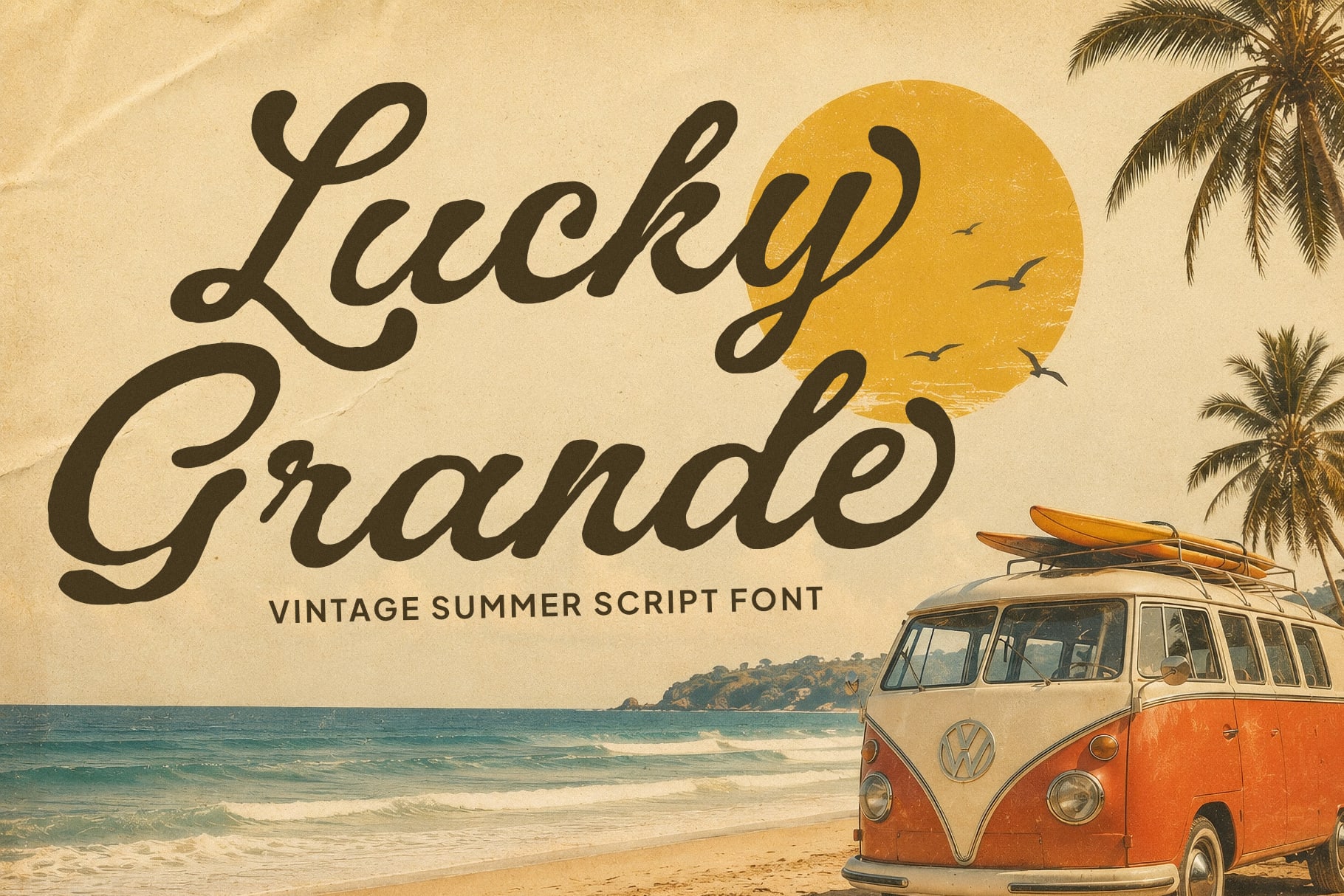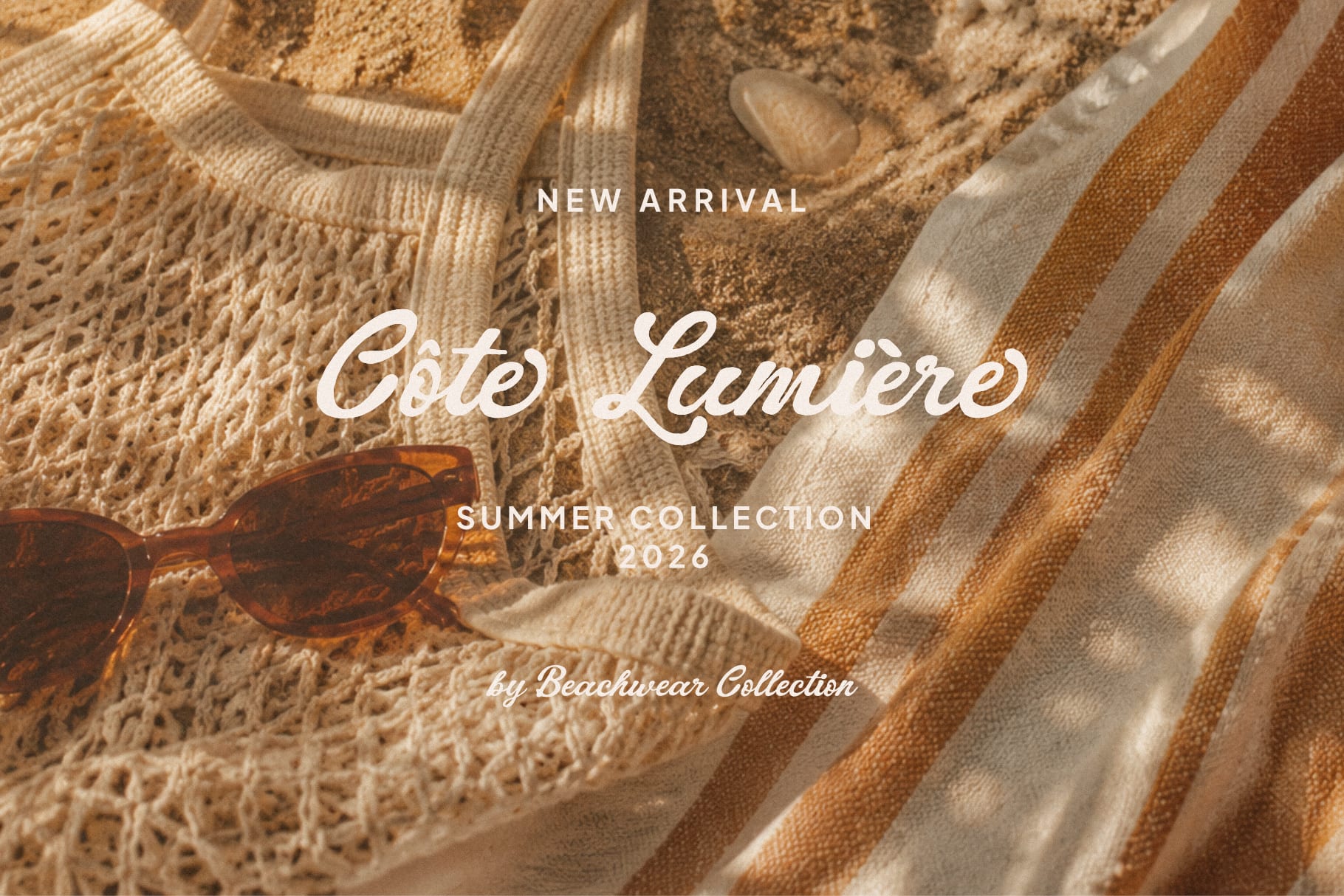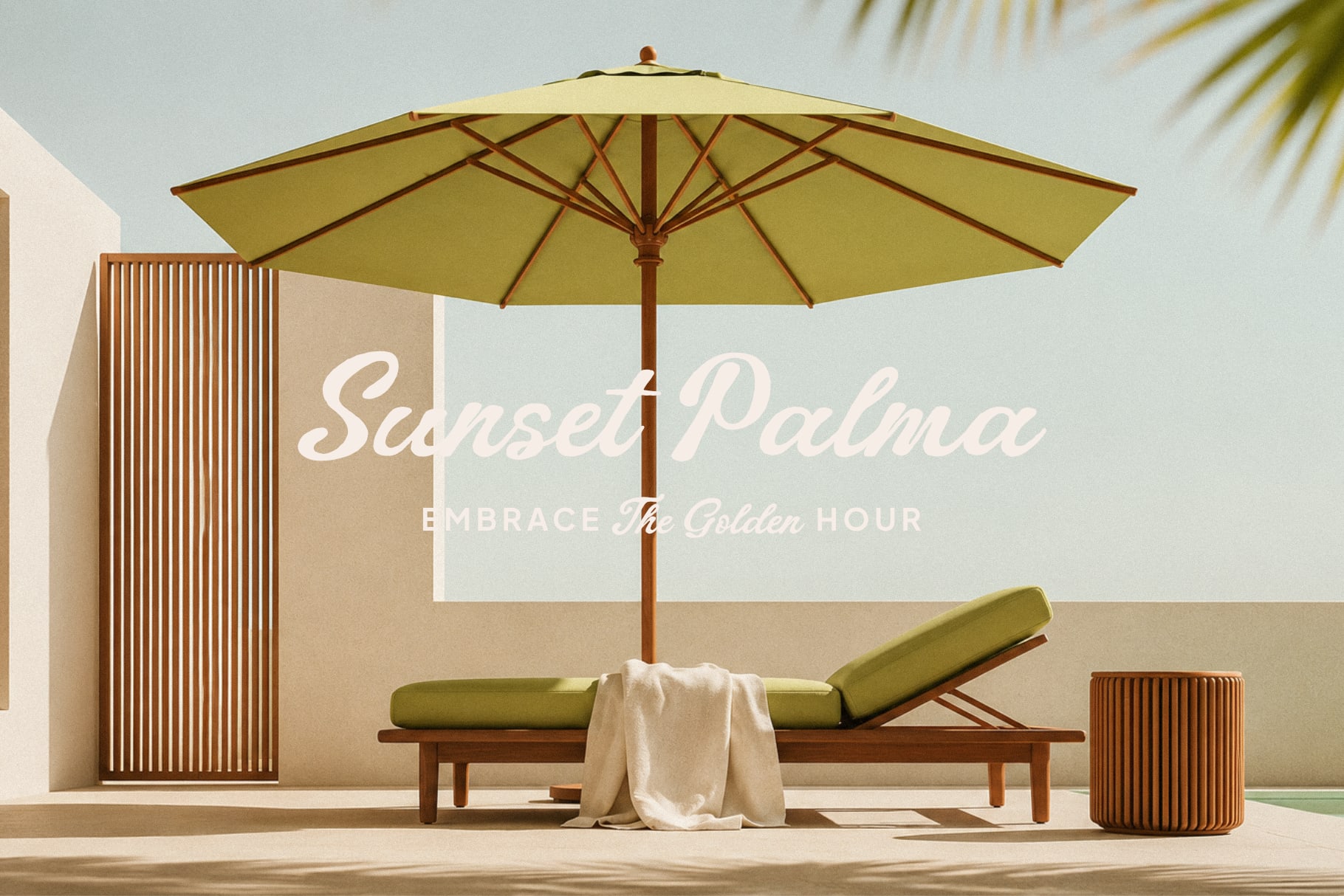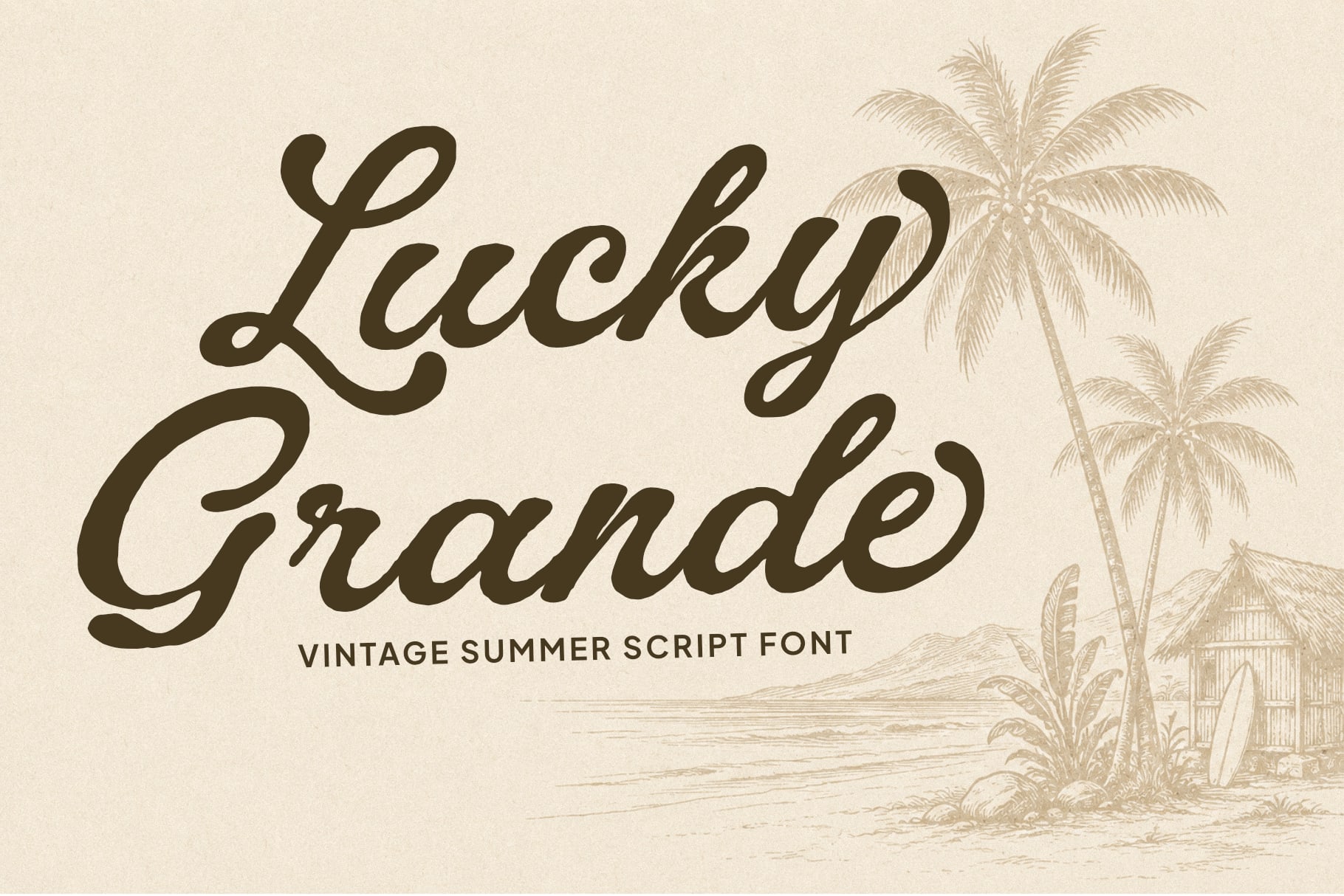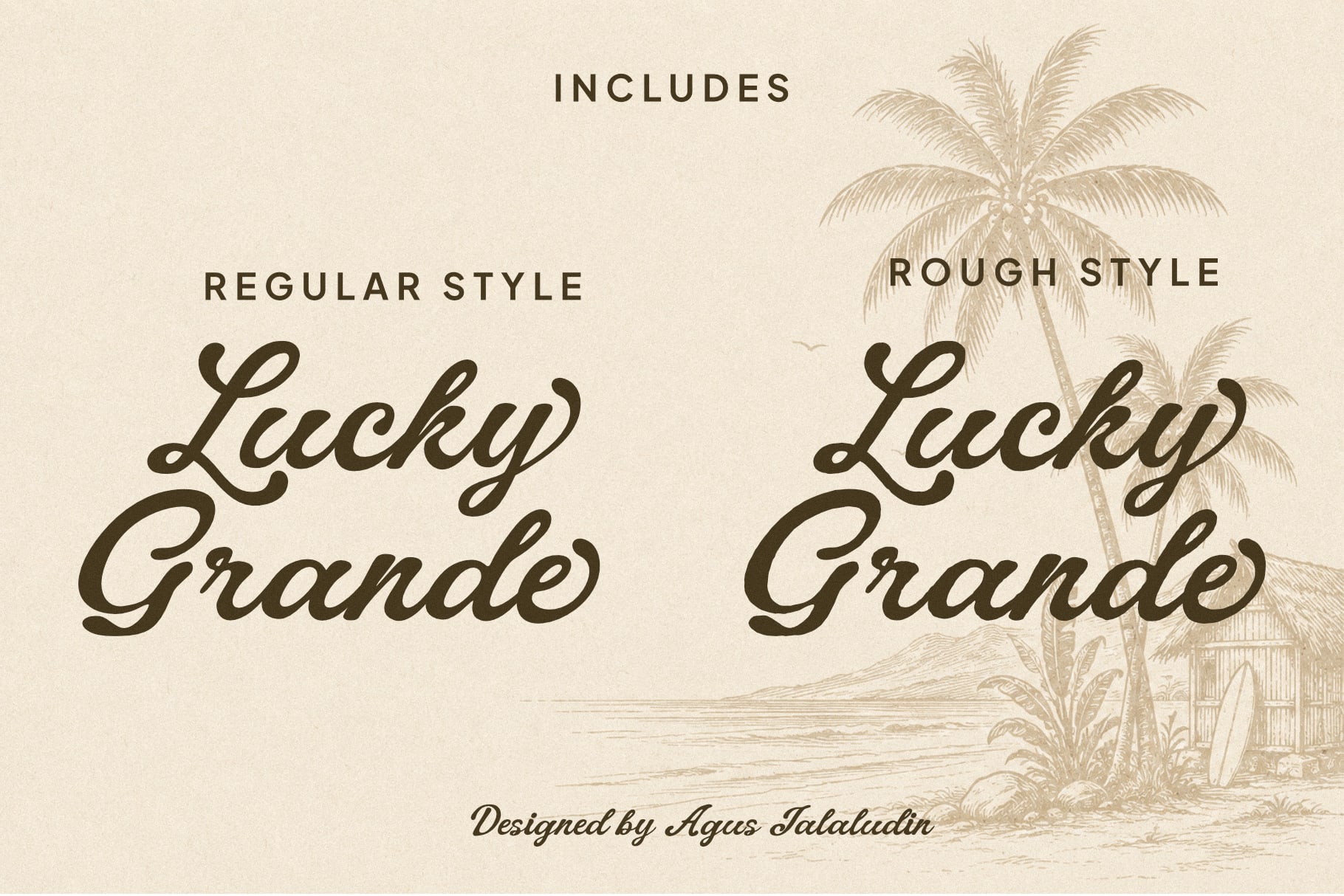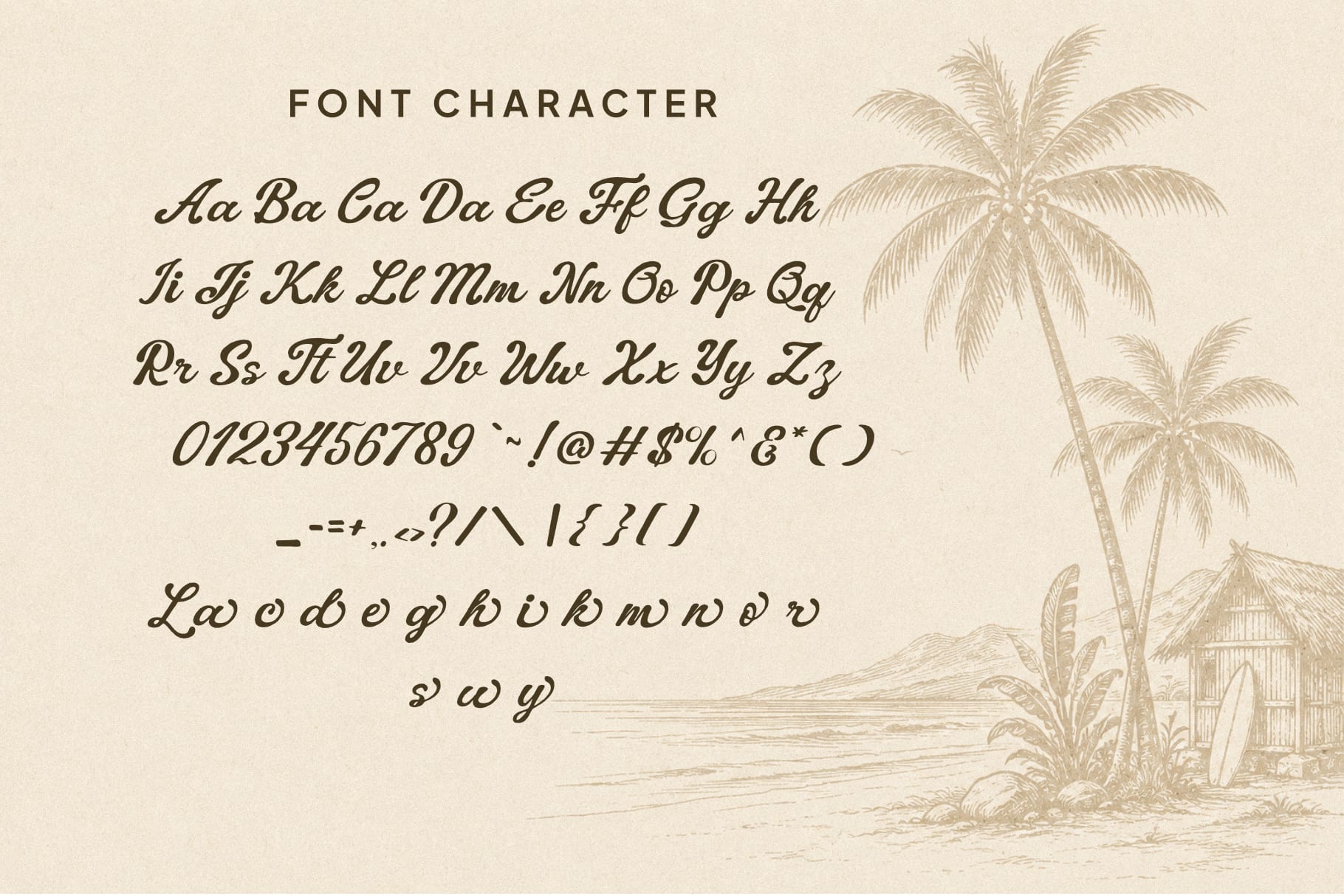
Perfect for summer branding, beach clubs, surf shops, travel projects, cafés, packaging, posters, apparel, logos, social media graphics, and lifestyle products, Lucky Grande helps create eye-catching designs with a relaxed vintage personality. The combination of bold lettering and handcrafted details makes it equally suitable for both playful branding and standout display typography.
Alternate Characters
Ligatures & Stylistic Features
Multilingual Support